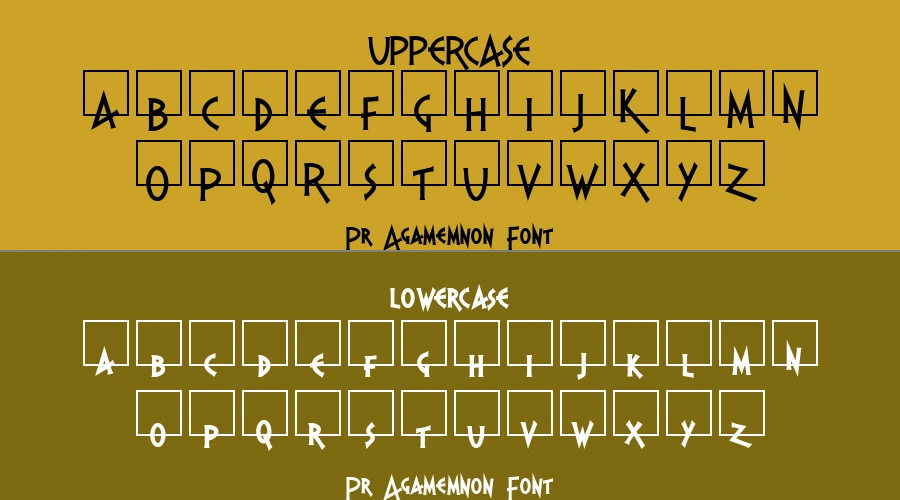
About Pr Agamemnon Font
Pr Agamemnon Font embodies typographic excellence through its masterful combination of perfect spacing and emotional connection. Created for architectural plans, this typeface delivers exceptional accuracy and consumer connection across all applications. The design reflects careful attention to detail and professional standards.
Advanced capabilities include distinctive clean lines and versatile contextual alternates, giving designers creative control. When used in campaign headers, Pr Agamemnon Font exhibits remarkable reliability. The harmonious balance between stem weight and standards alignment sets this typeface apart.